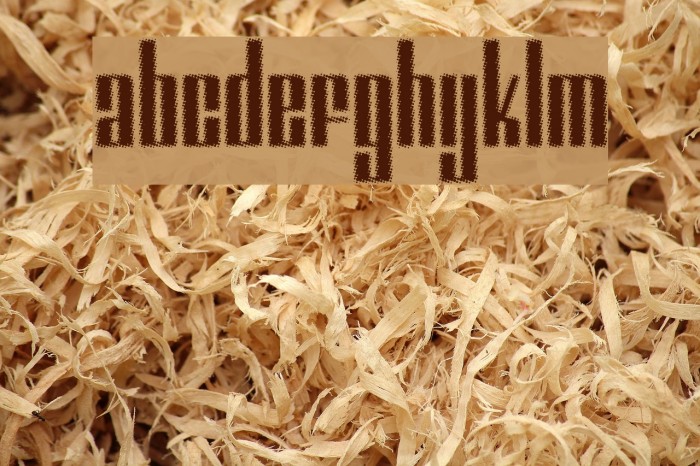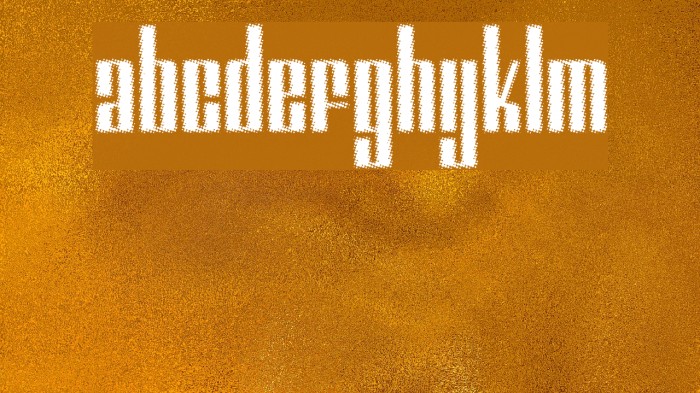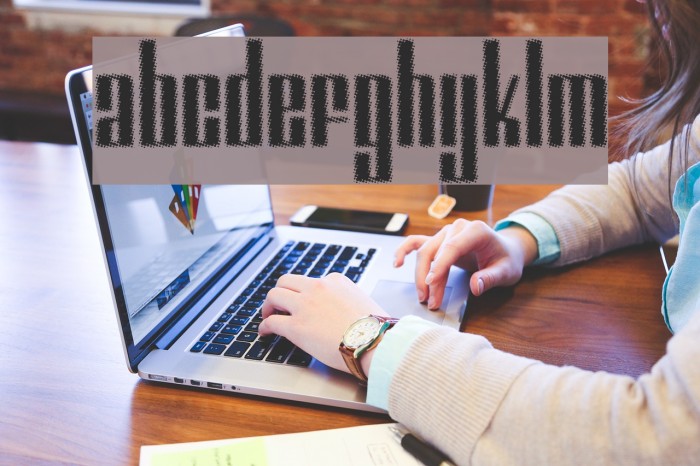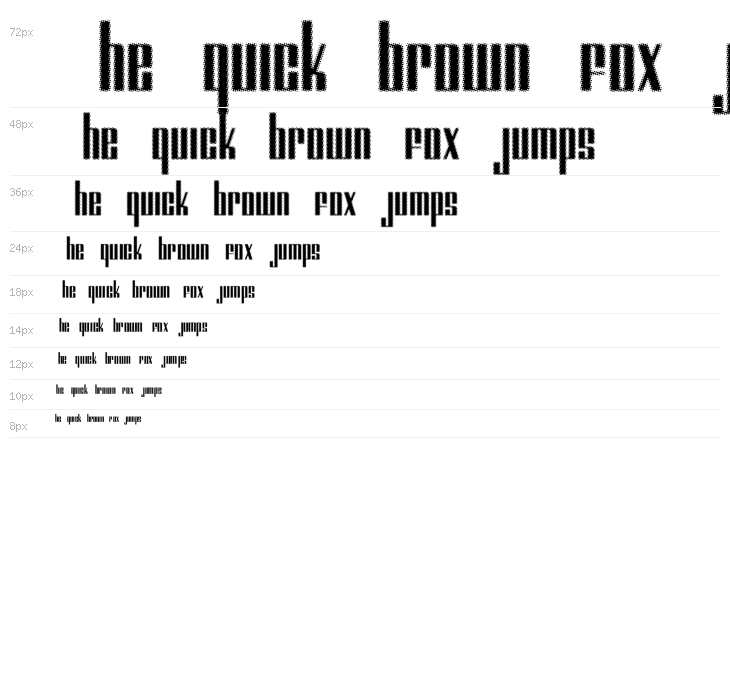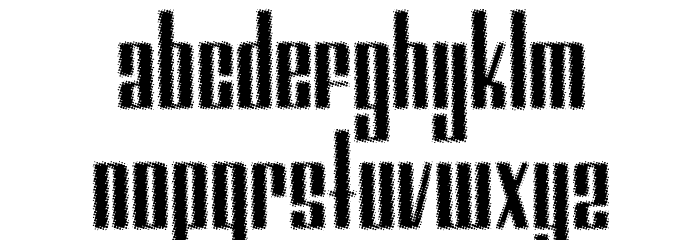
Trajma Font
Trajma Description
This font features a bold and dynamic design with a distinctly modern and edgy appearance. The characters are tall and narrow, with a slight slant that adds a sense of movement and energy. The strokes are thick and consistent, providing a strong visual impact. The font's unique texture, reminiscent of a digital glitch or pixelated effect, adds an additional layer of interest and complexity. This style is particularly eye-catching and would stand out in any design project.